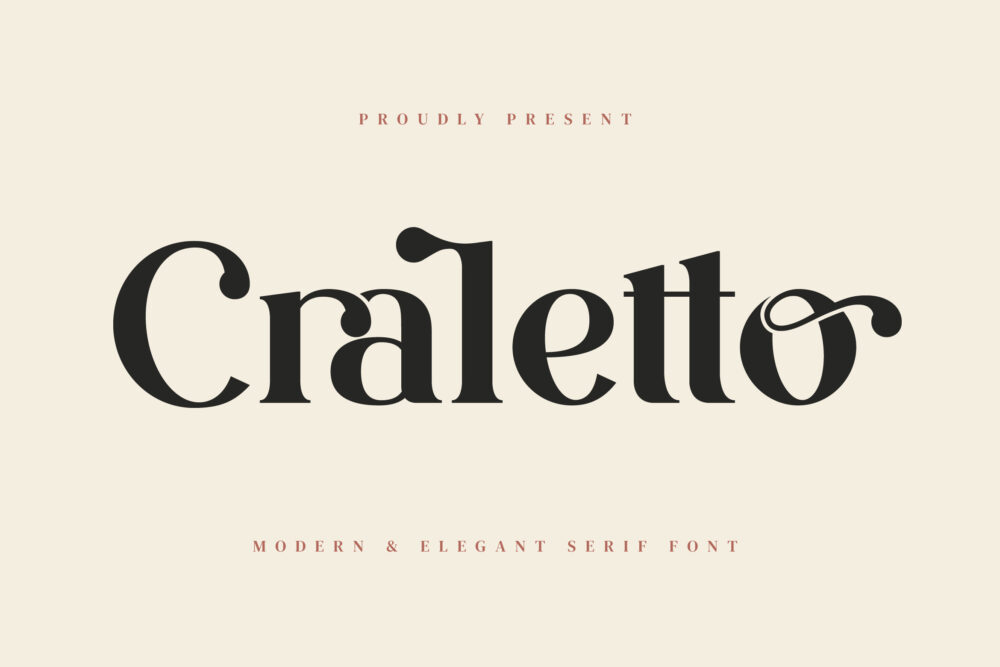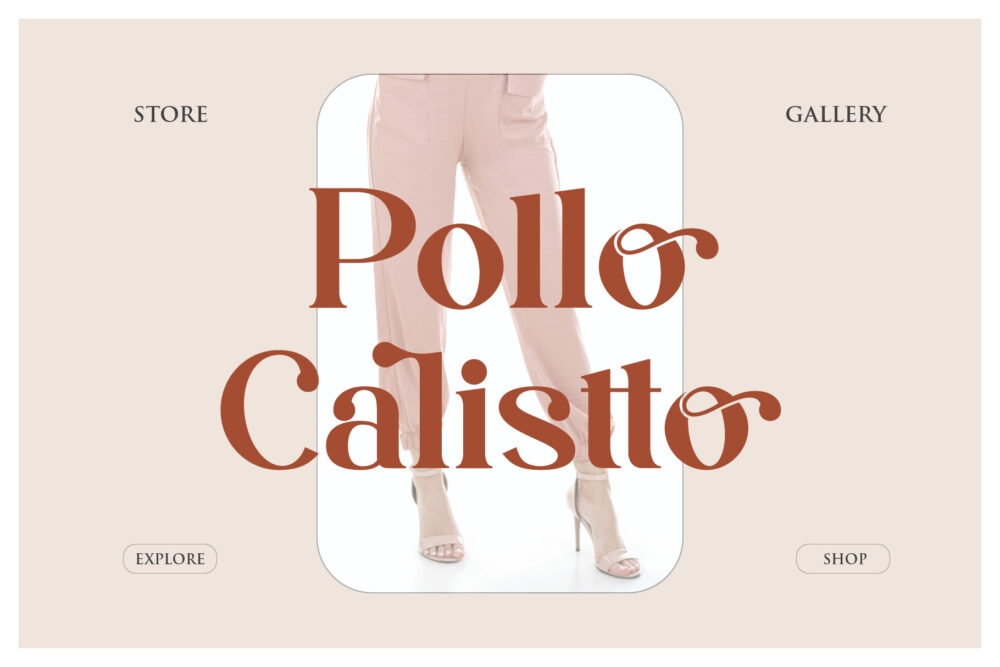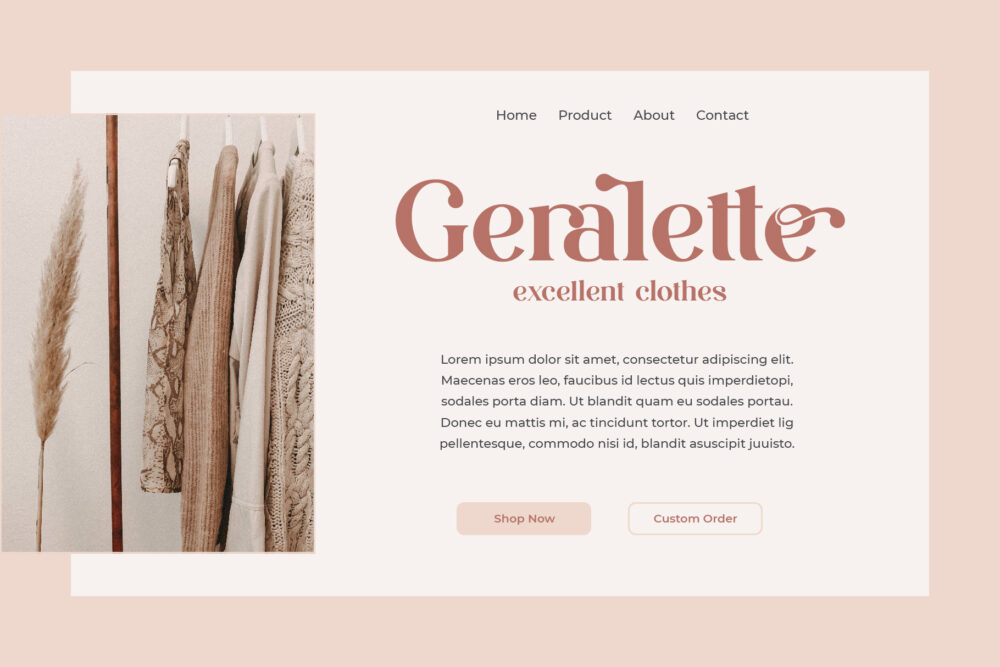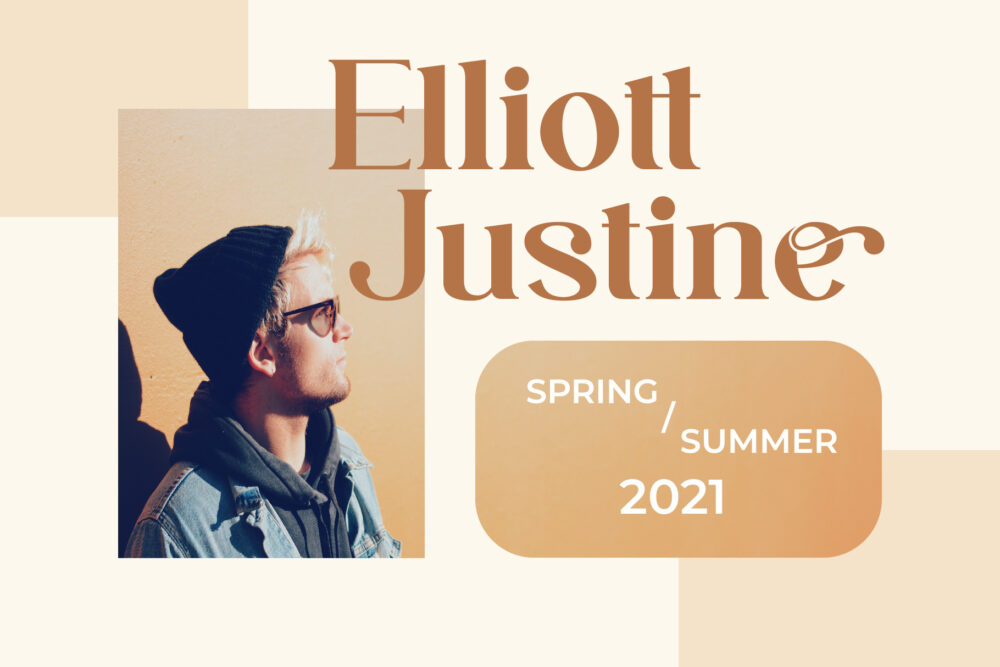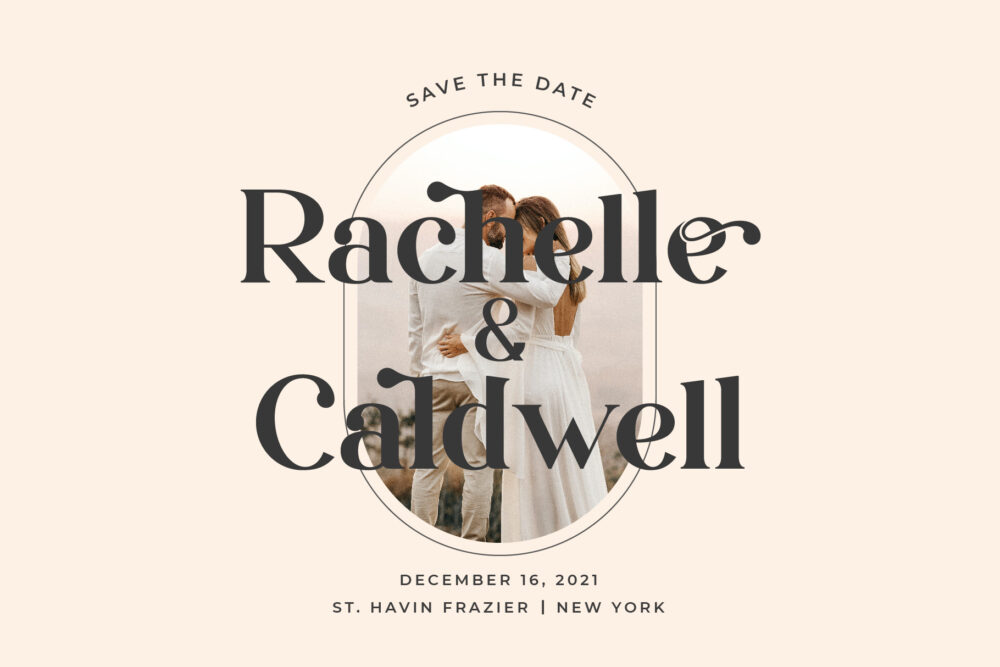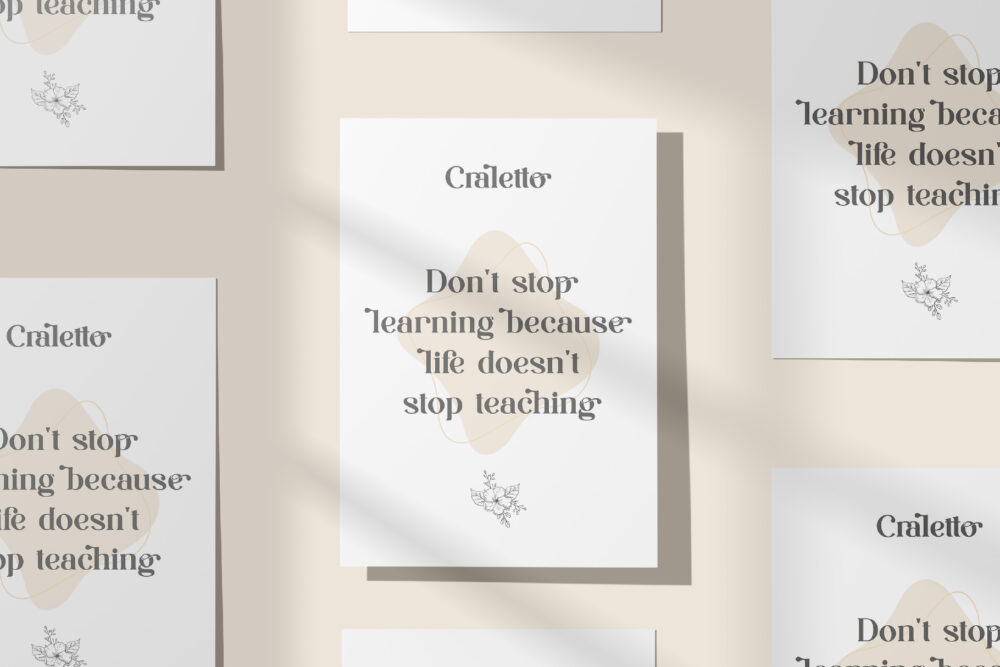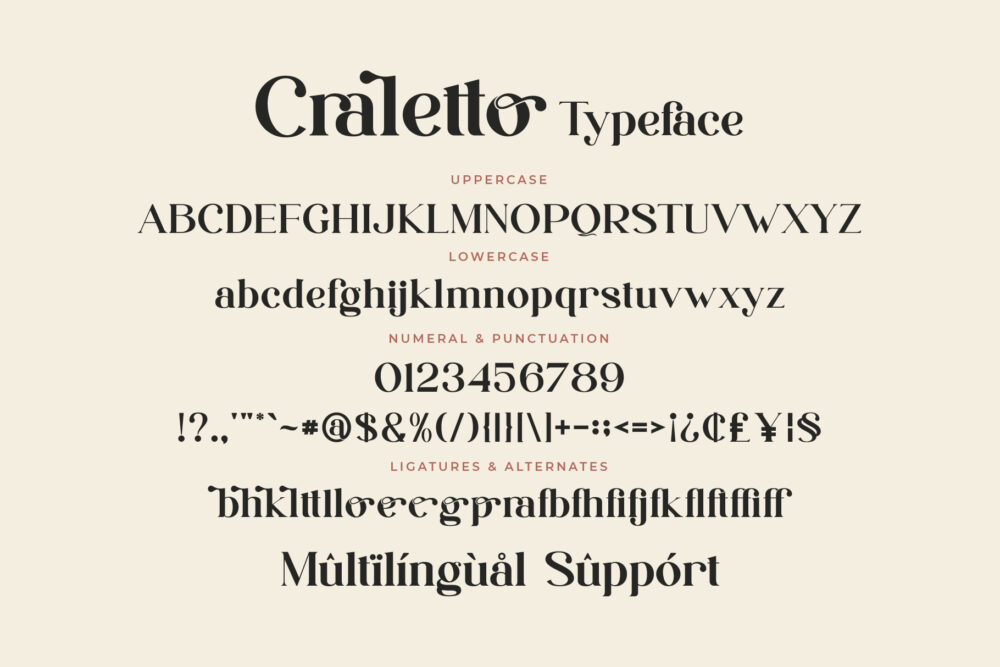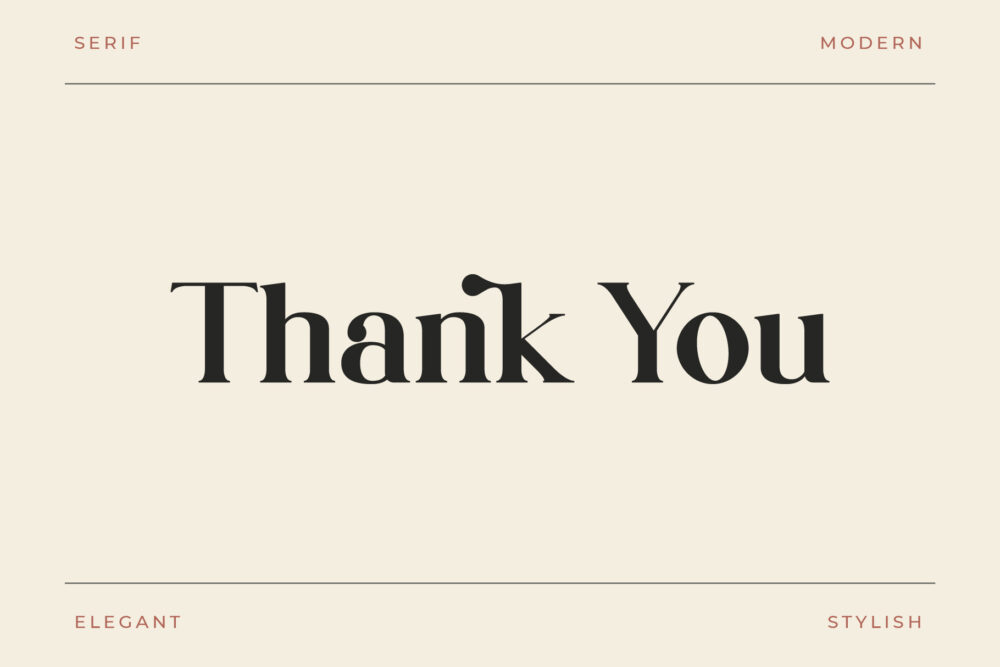
Craletto Stylish Ligature Typeface, inspired by the famous minimalist logo perfect for the purposes of designing templates, brochures, videos, advertising branding, logos and more.